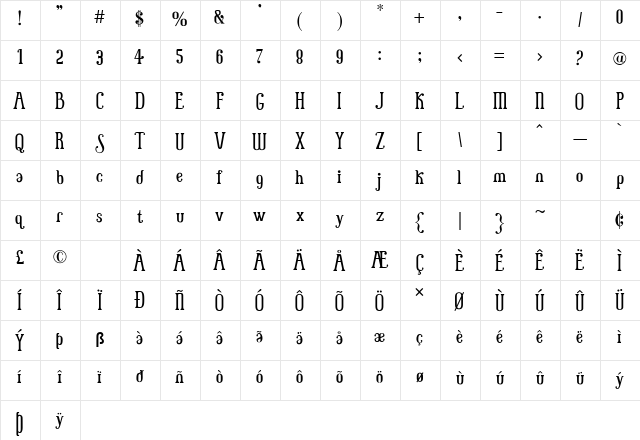
Little Baby Regular
Design Context for Little Baby Typeface
Little Baby offers clean, dependable letterforms without strong stylistic allegiance, making it a practical choice for designers who need flexibility.